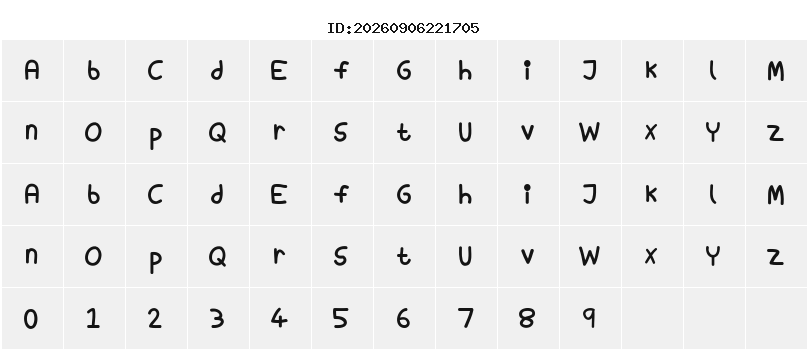
Ups, Downs, Highs & Lows Preview
• Font Name: Ups, Downs, Highs & Lows
• Full Font Name: Ups, Downs, Highs & Lows
About Ups, Downs, Highs & Lows.ttf
Ups, Downs, Highs & Lows.ttf is a modern, elegant sans-serif font designed for ultimate readability and visual harmony. Perfect for branding, headlines, web design, and print materials.